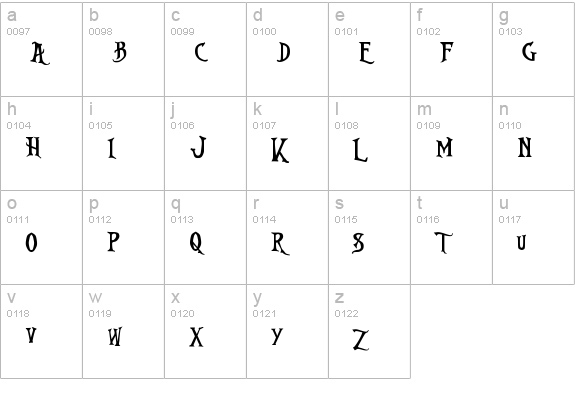
Introducing the Nightmare Before Christmas font, a hauntingly beautiful typeface that captures the essence of Tim Burton's beloved dark fantasy film. This font is perfect for unleashing your inner Jack Skellington or Sally, as it effortlessly brings the whimsical yet eerie atmosphere of Halloween Town to life. Crafted with meticulous attention to detail, the Nightmare Before Christmas font boasts a unique blend of twisted, jagged lines and delicate, curvaceous elements. Each letter is imbued with a sense of otherworldly charm, making it the ideal choice for adding a touch of macabre elegance to your designs. But what's even more thrilling is that this incredible font is available to download for free! Yes, you heard it right. Thanks to the generosity of FontsMarket.com, you can now freely access and enjoy the Nightmare Before Christmas font. Whether you're a professional designer seeking a distinctive typeface or an enthusiastic fan looking to add a touch of magic to your personal creations, this font is a must-have. With its versatility and striking appearance, the Nightmare Before Christmas font can be seamlessly incorporated into a wide range of projects. From spooky party invitations and Halloween-themed posters to gothic wedding stationery and Tim Burton-inspired artwork, the possibilities are endless. So don't wait any longer. Embrace the darkness and let the Nightmare Before Christmas font take your designs to new heights. Download it freely at FontsMarket.com and unleash your creativity with a touch of Tim Burton's enchanting world. Happy designing!